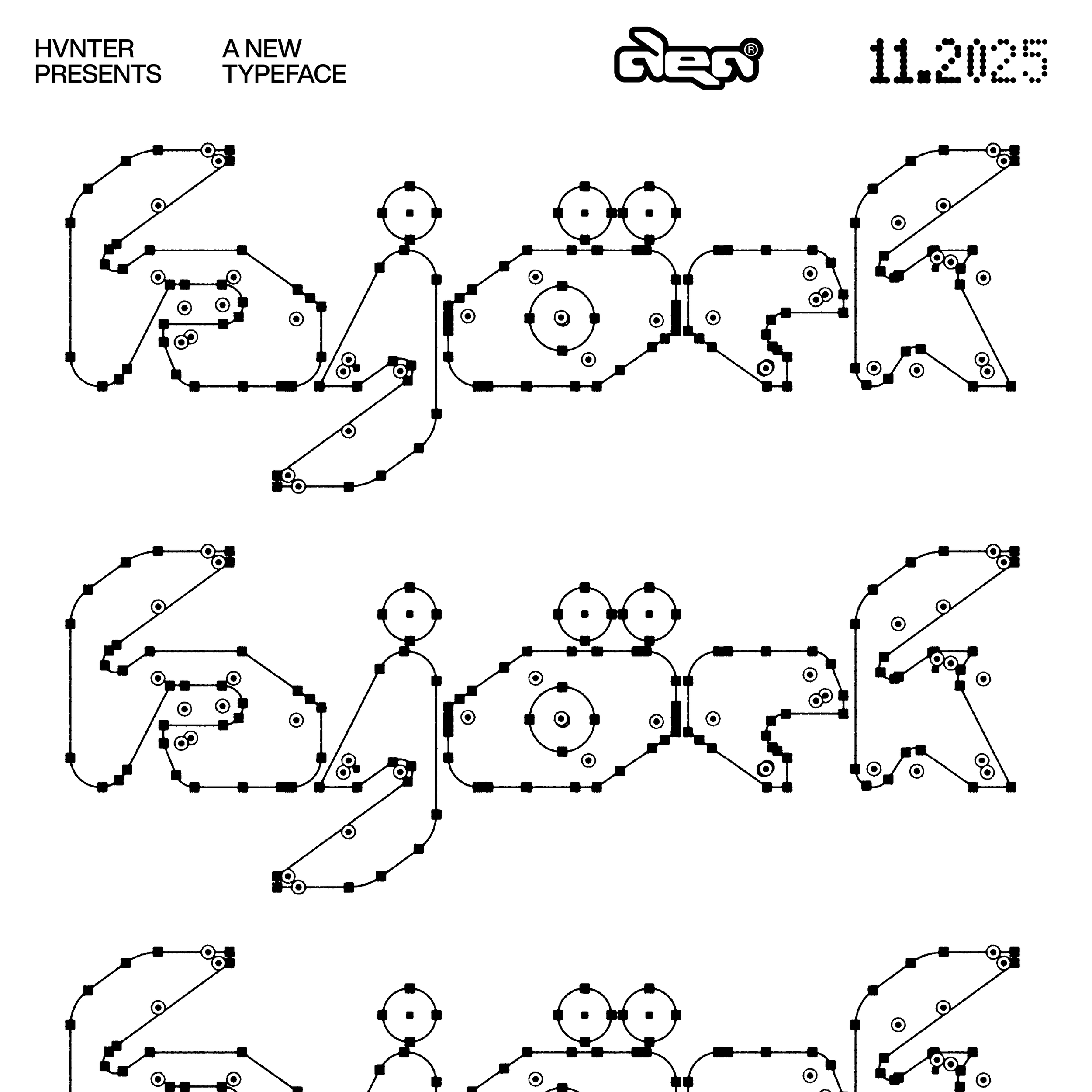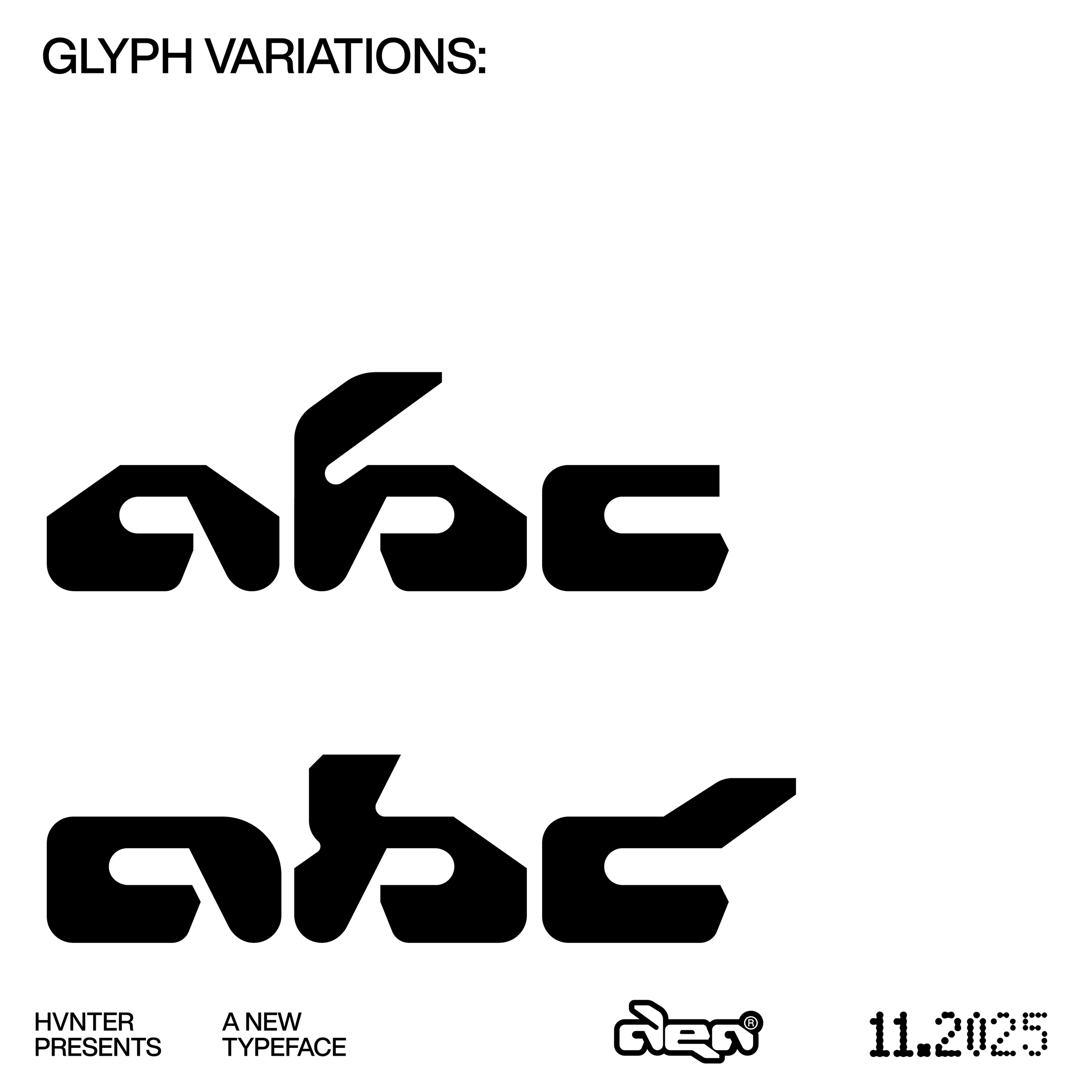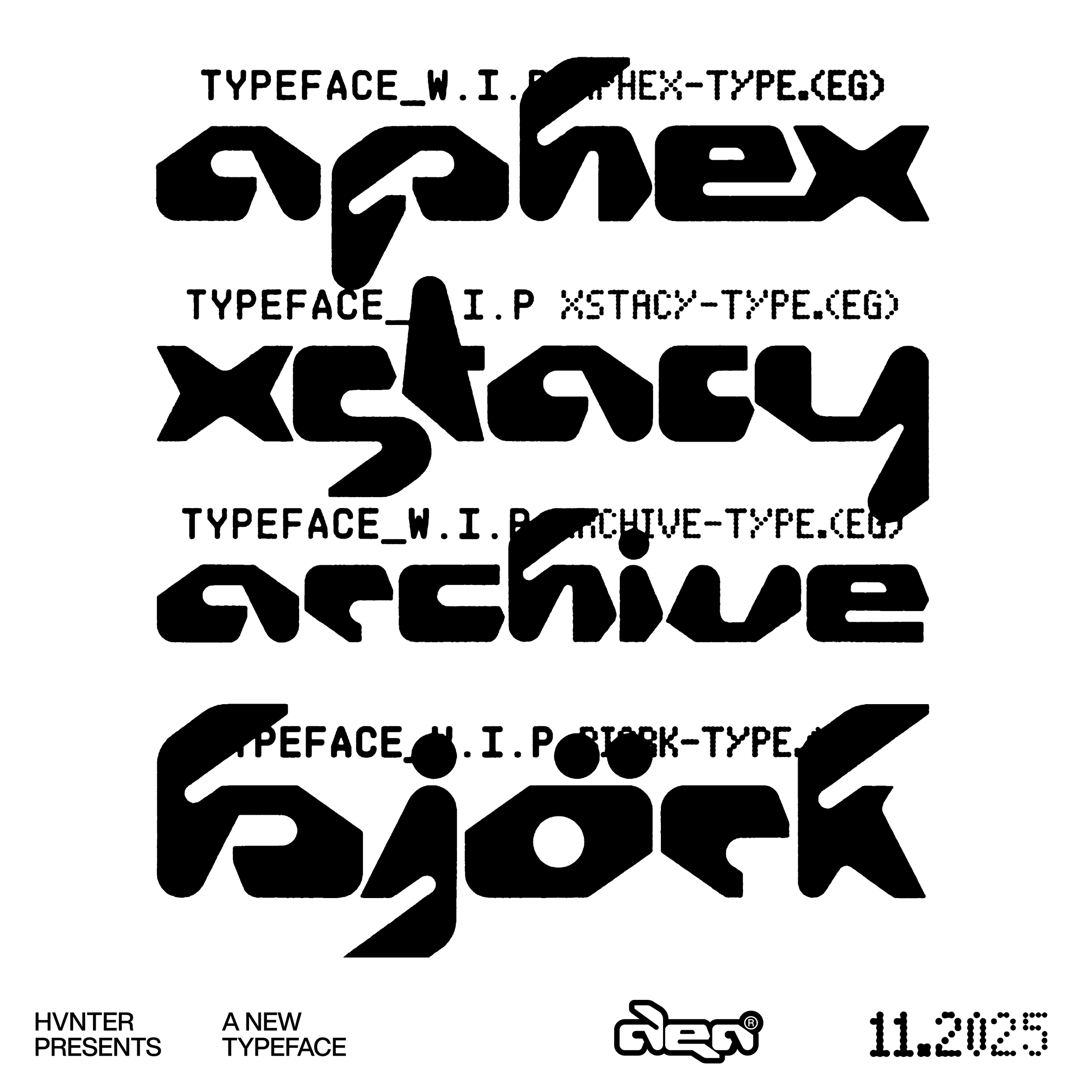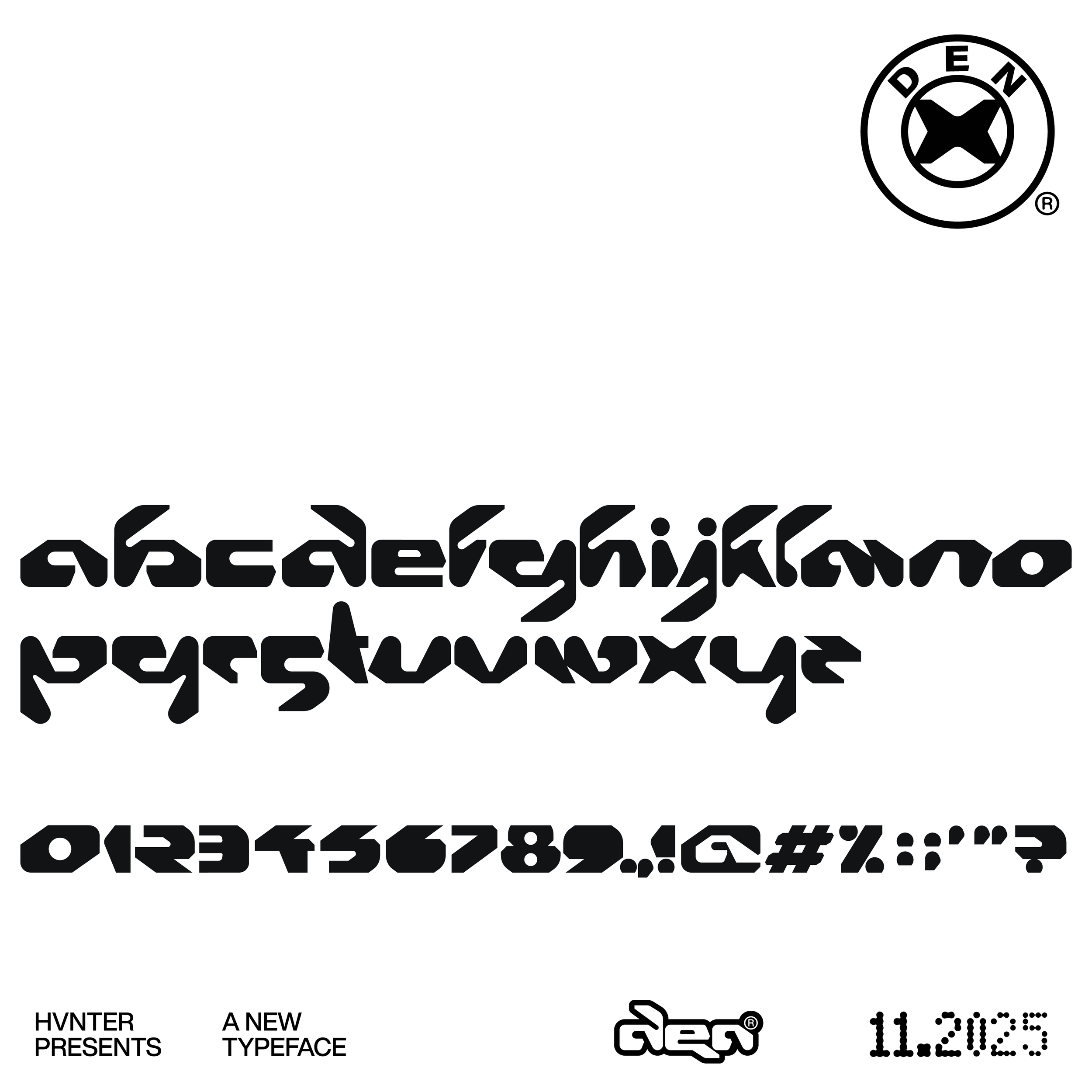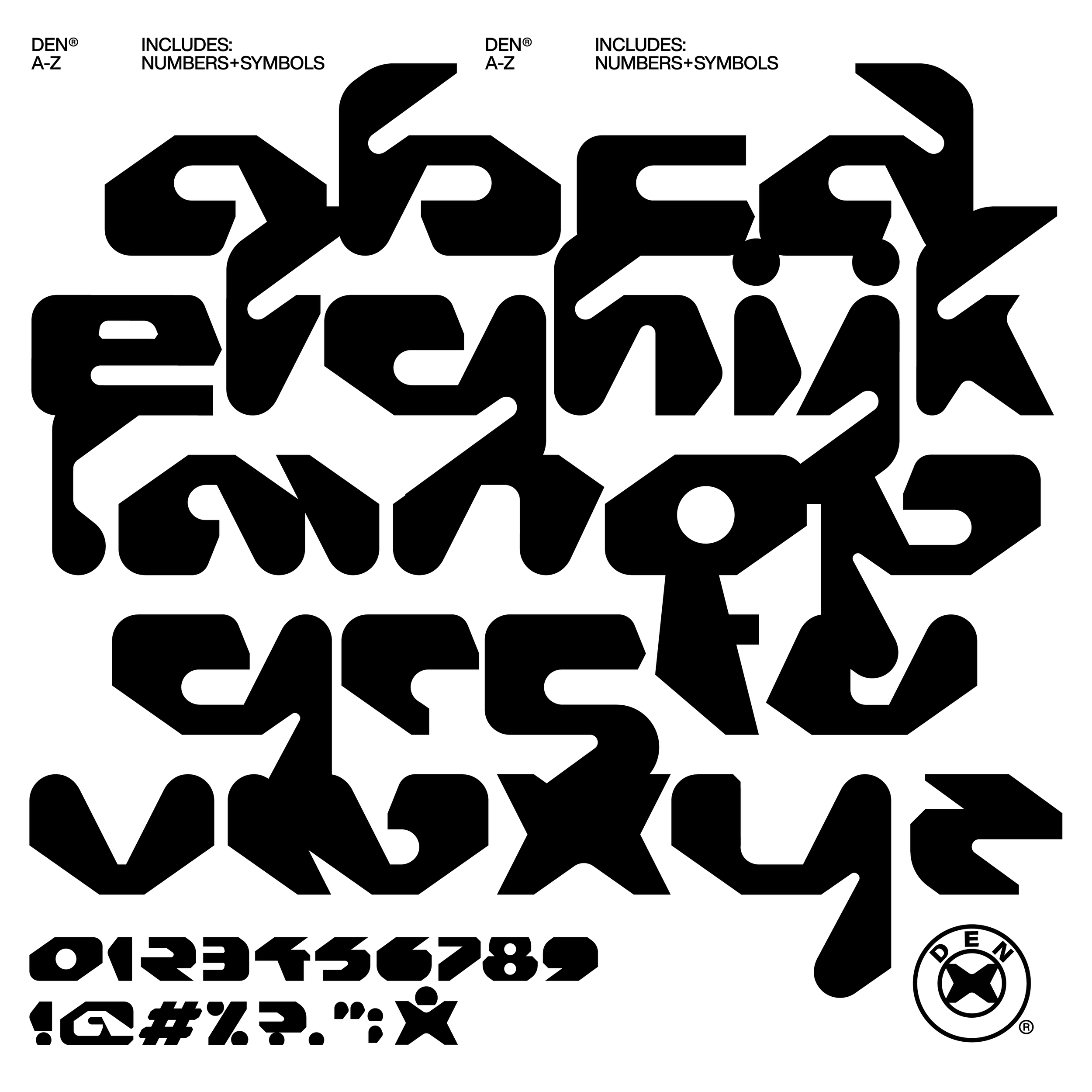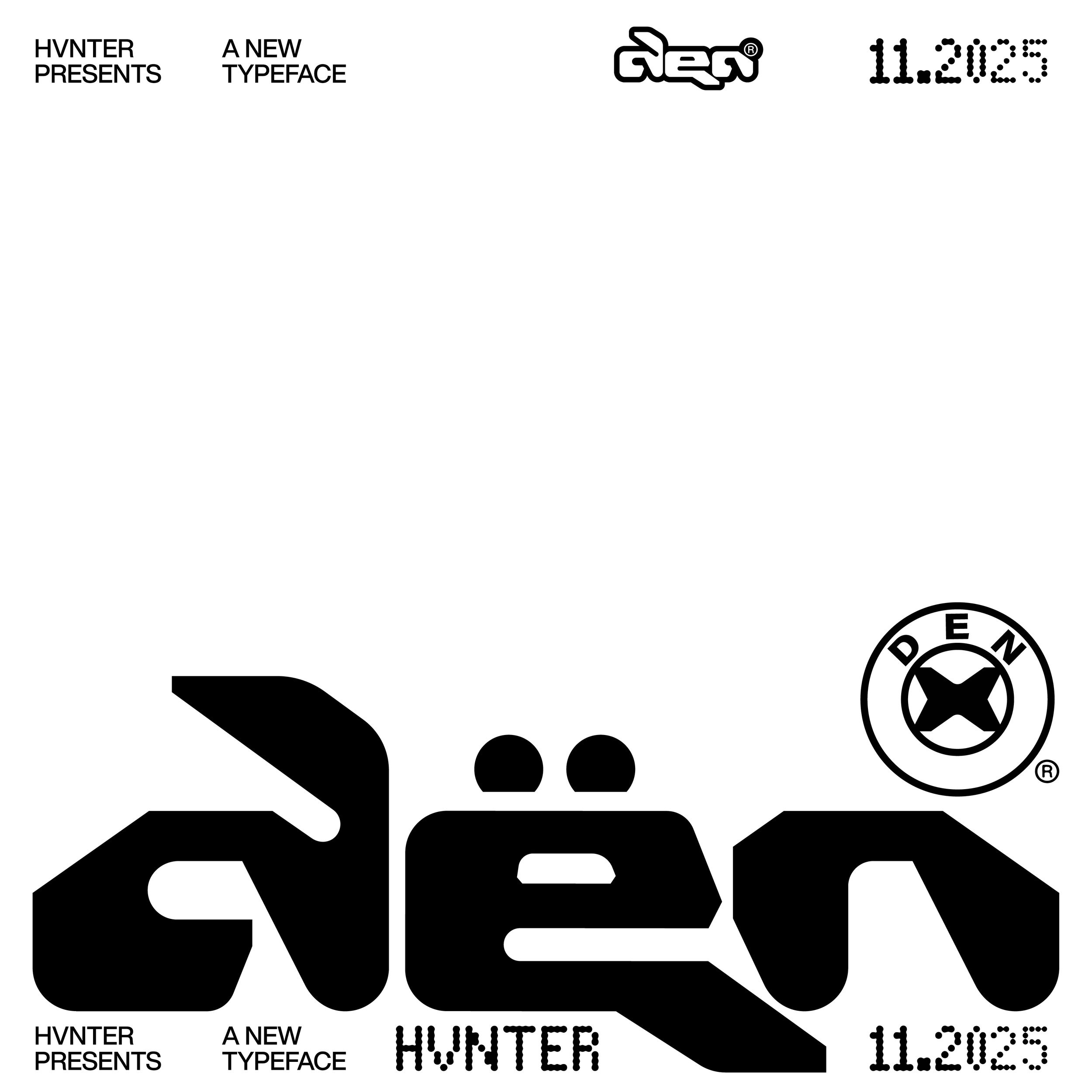
ALL PRODUCTS › Den Typeface $20.00 Y2K Inspired typeface with letter variations to create custom type!Includes a-z, 0-9 + basic symbols. Y2K Inspired typeface with letter variations to create custom type!Includes a-z, 0-9 + basic symbols. get den >:) Added! Reviews Reviewer Name Review Date Star Rating Description Posted on Etsy Product Show More You Might Also Like Racer Typeface $20.00 Plumpelo® Typeface (Volume 2) $15.00 Blitz Typeface $20.00 CyberScript $20.00 ORPHACE Typeface $20.00